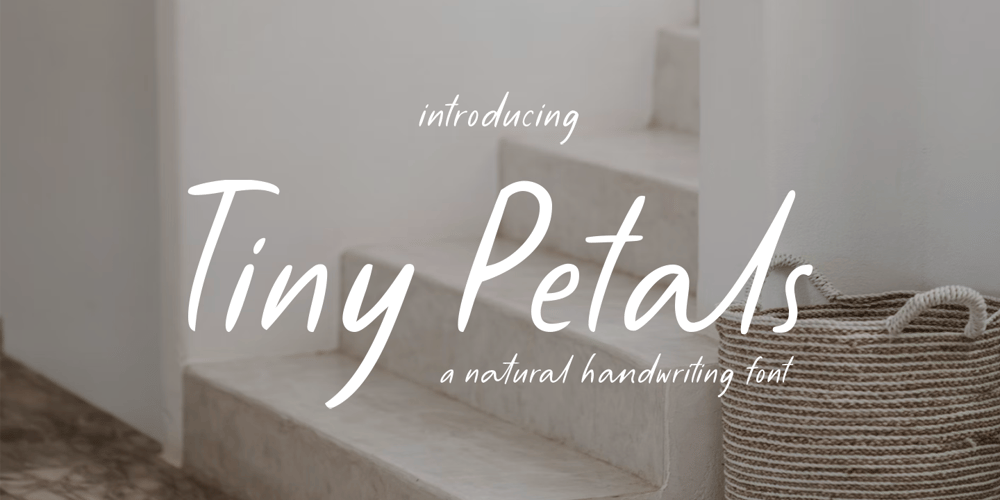
Tiny Petals
Tiny Petals font
Tiny Petals Font Family was designed by Hendry Juanda and published by Letterhend. Tiny Petals contains 2 styles and family package options. Introducing Tiny Petals , a natural handwritten font designed to bring a touch of authenticity and personal flair to your projects. This casual handwritten is perfect for various applications, such as branding, logos, packaging, invitations, and more, where a blend of organic and handwritten aesthetics is desired to create a warm and personal touch.Features : Uppercase & lowercase Numbers and punctuation Alternates & Ligatures Multilingual Support PUA encoded